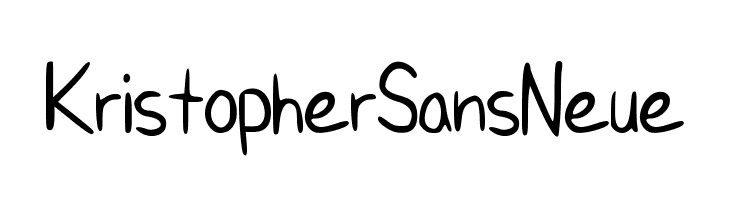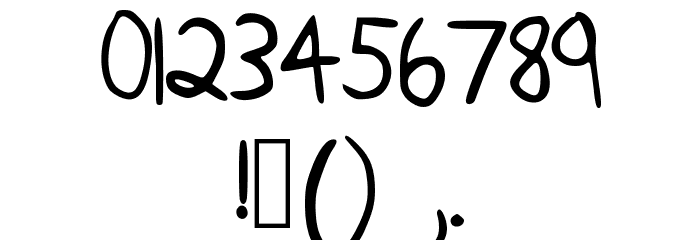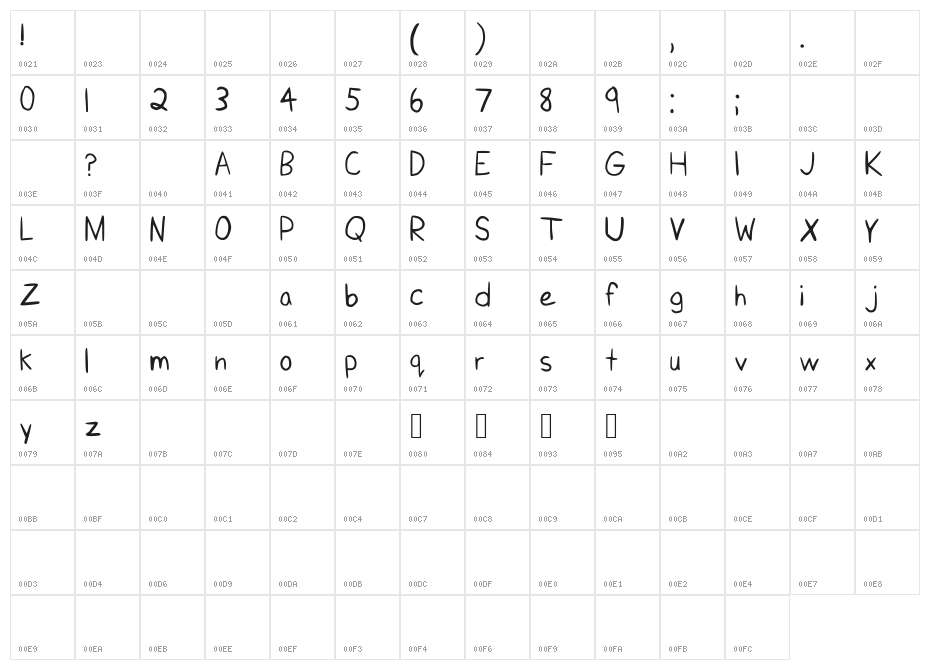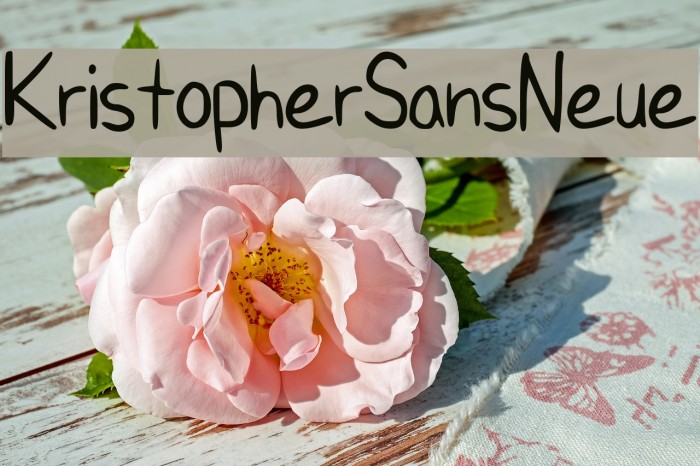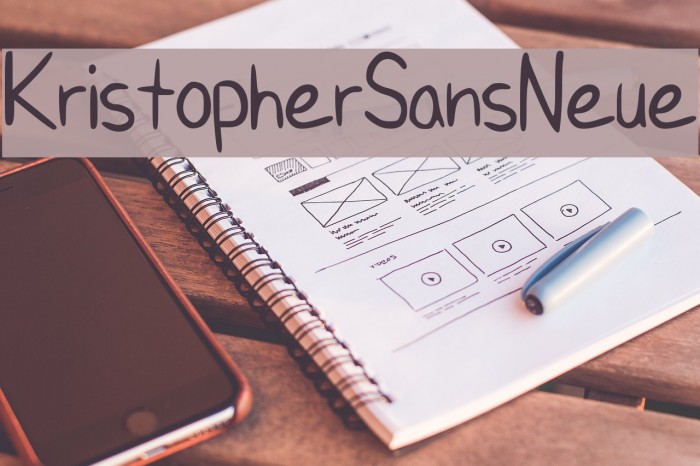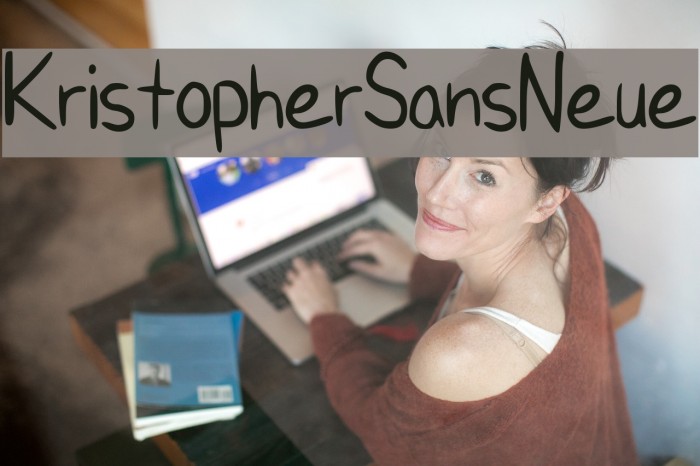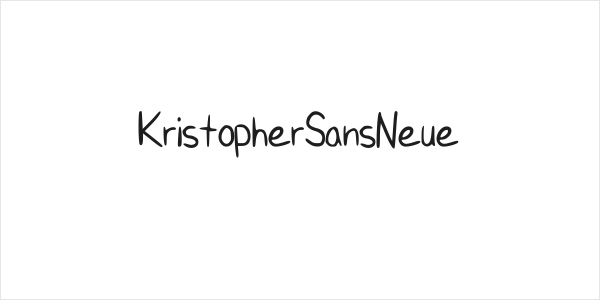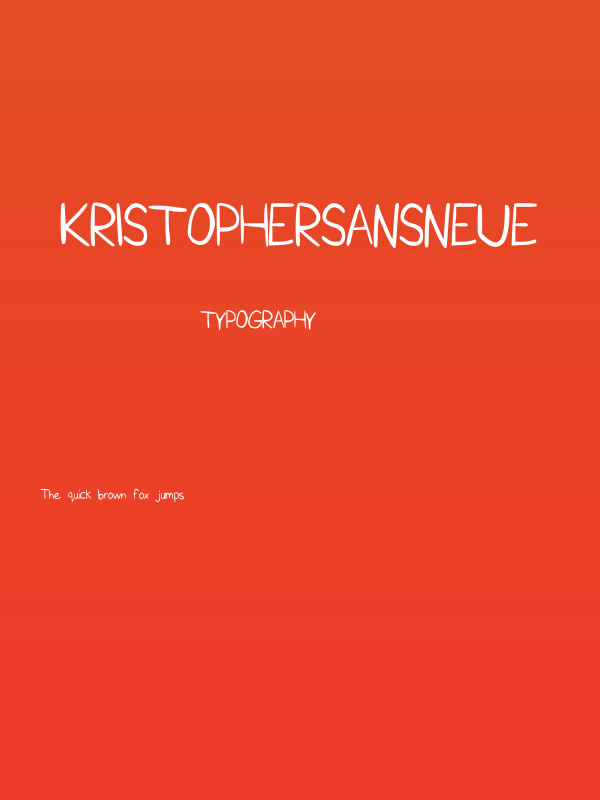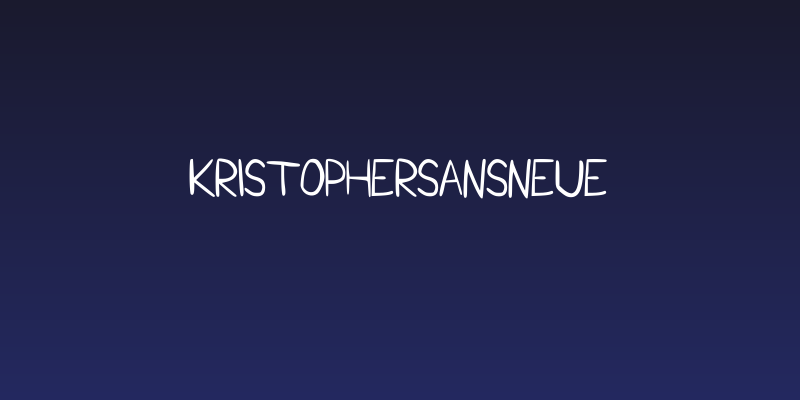
KristopherSansNeue Font
KristopherSansNeue Description
This font features a playful and casual handwritten style, characterized by its rounded and slightly irregular letterforms. The uppercase and lowercase letters maintain a consistent flow, giving it a friendly and approachable appearance. The numerals are clear and easy to read, while the special characters add a touch of whimsy. The overall design is informal, making it suitable for projects that require a personal touch or a relaxed vibe.
| Use Case | Headlines, Informal text, Branding |
| Proposed Projects | Ideal for children's books, greeting cards, casual branding, and social media graphics. |